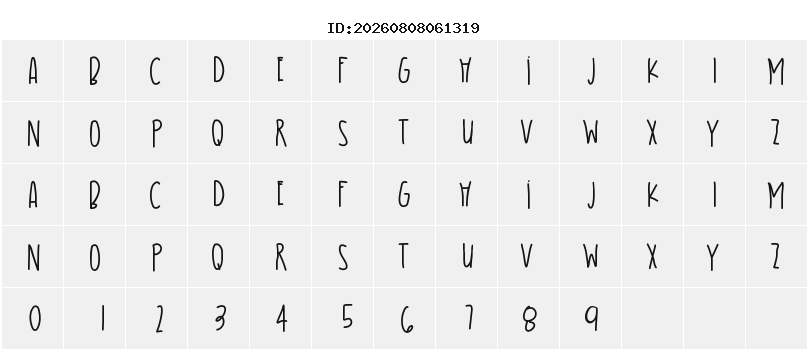
• Font Name: PrettyGirl
• Full Font Name: PrettyGirl
About PrettyGirl.ttf
PrettyGirl.ttf is a modern, elegant sans-serif font designed for ultimate readability and visual harmony. Perfect for branding, headlines, web design, and print materials.